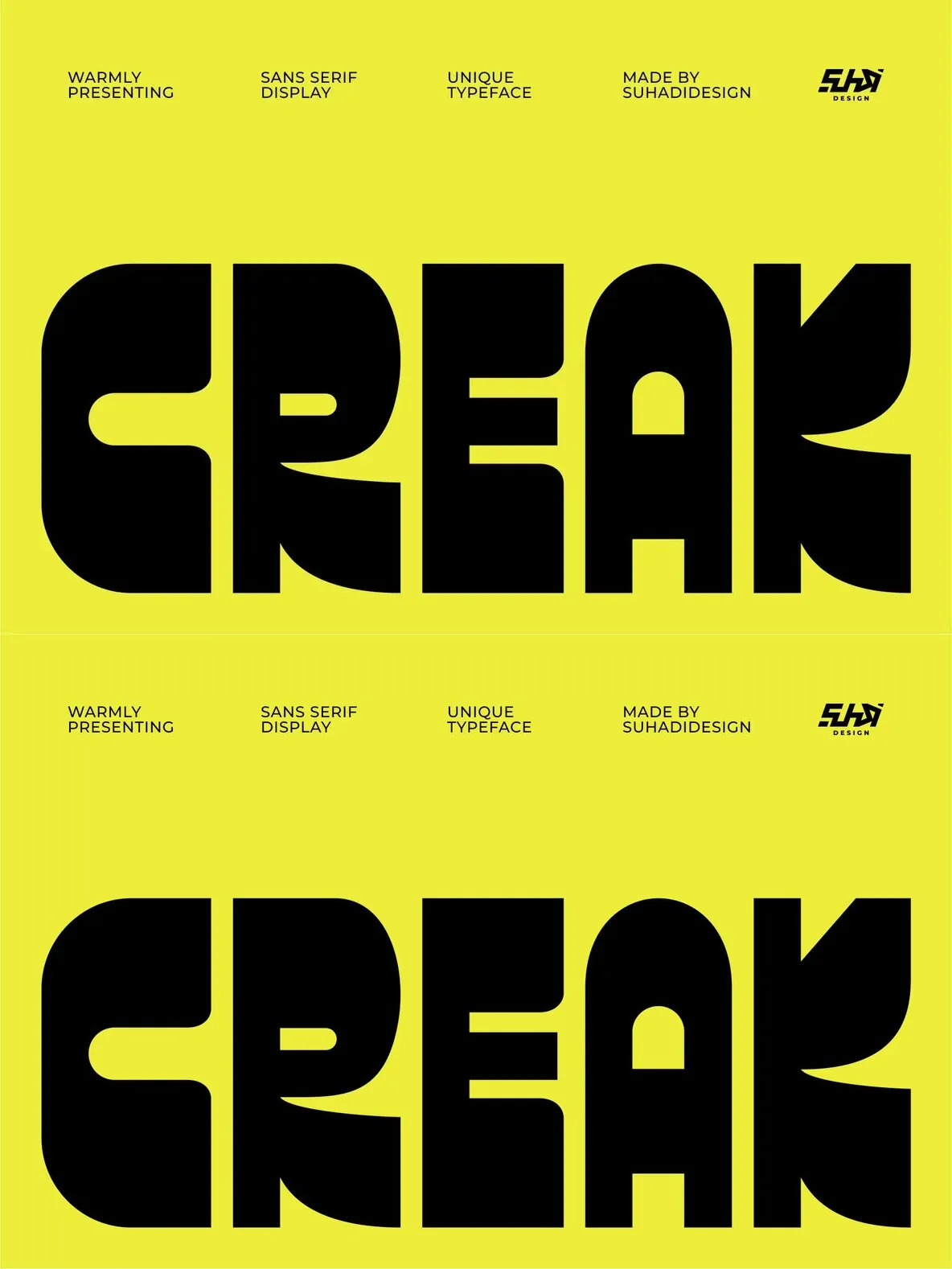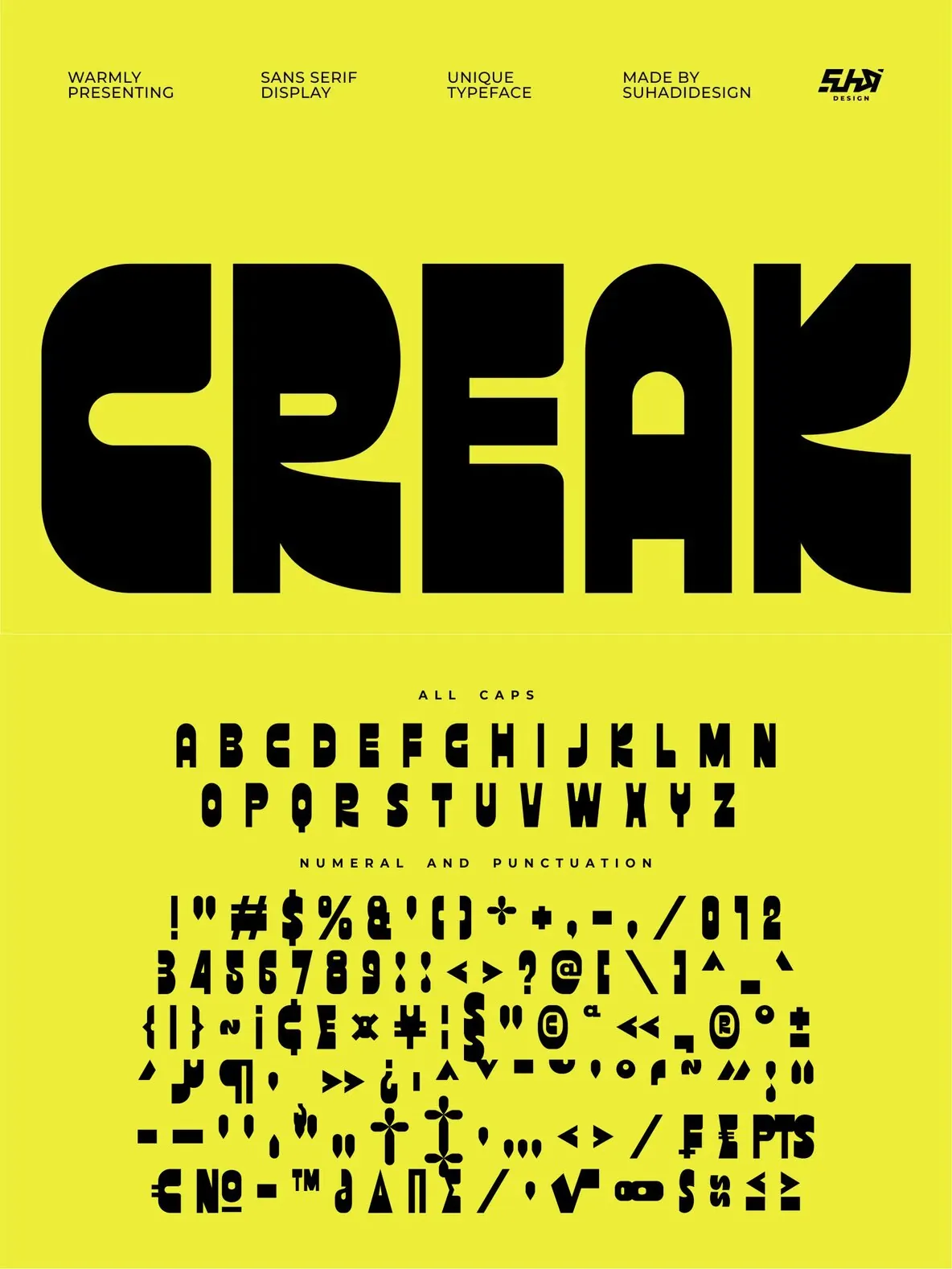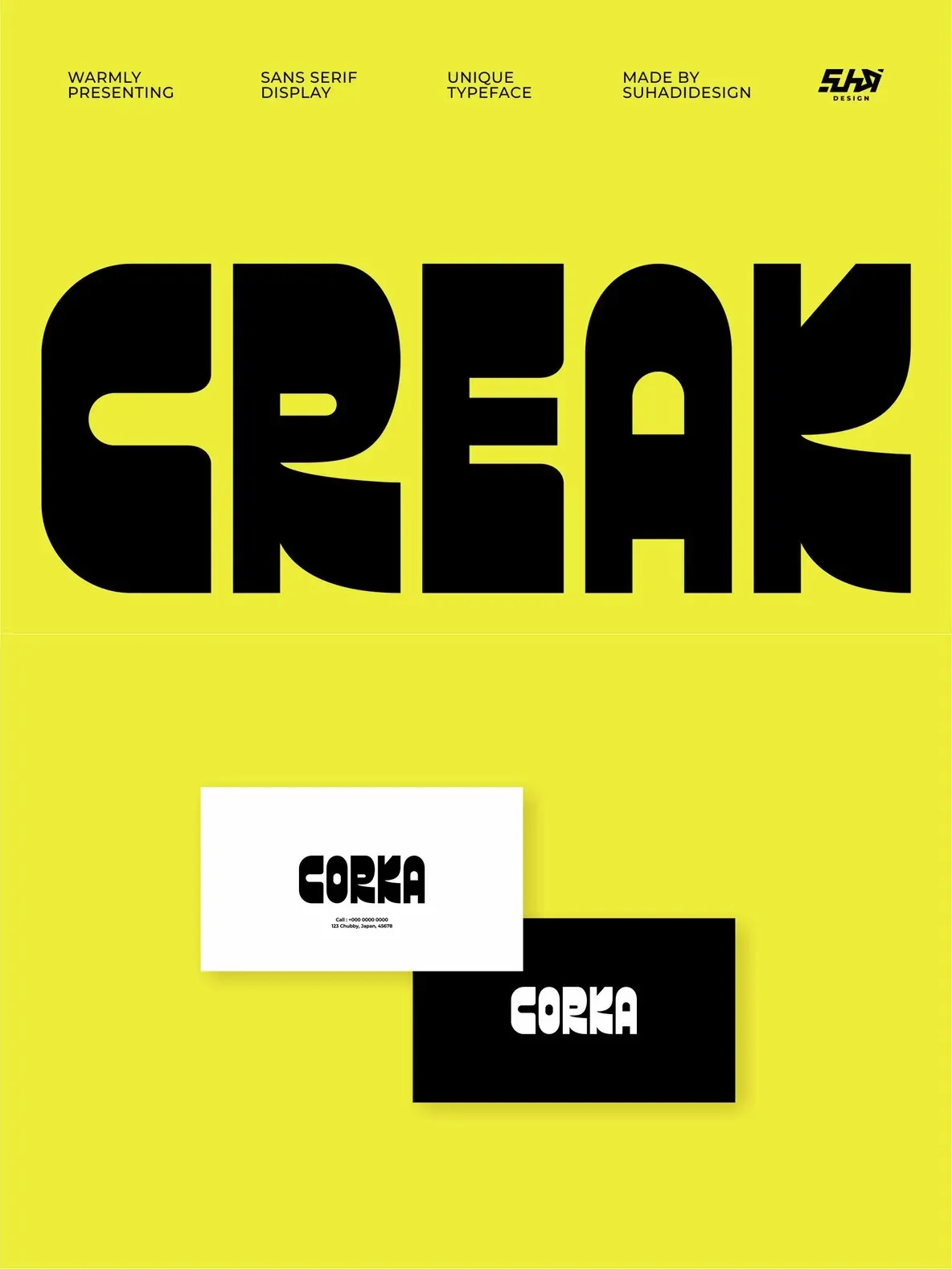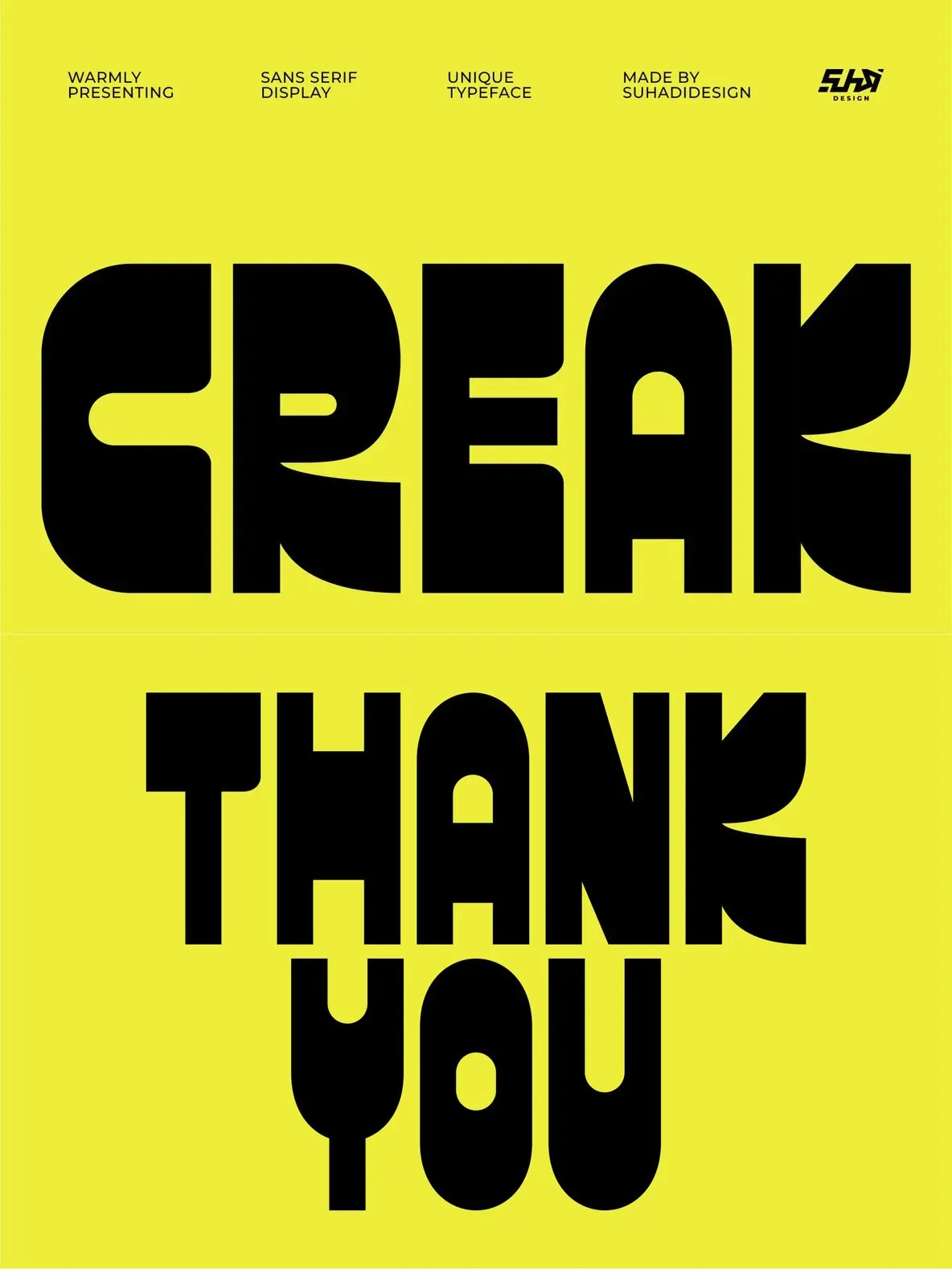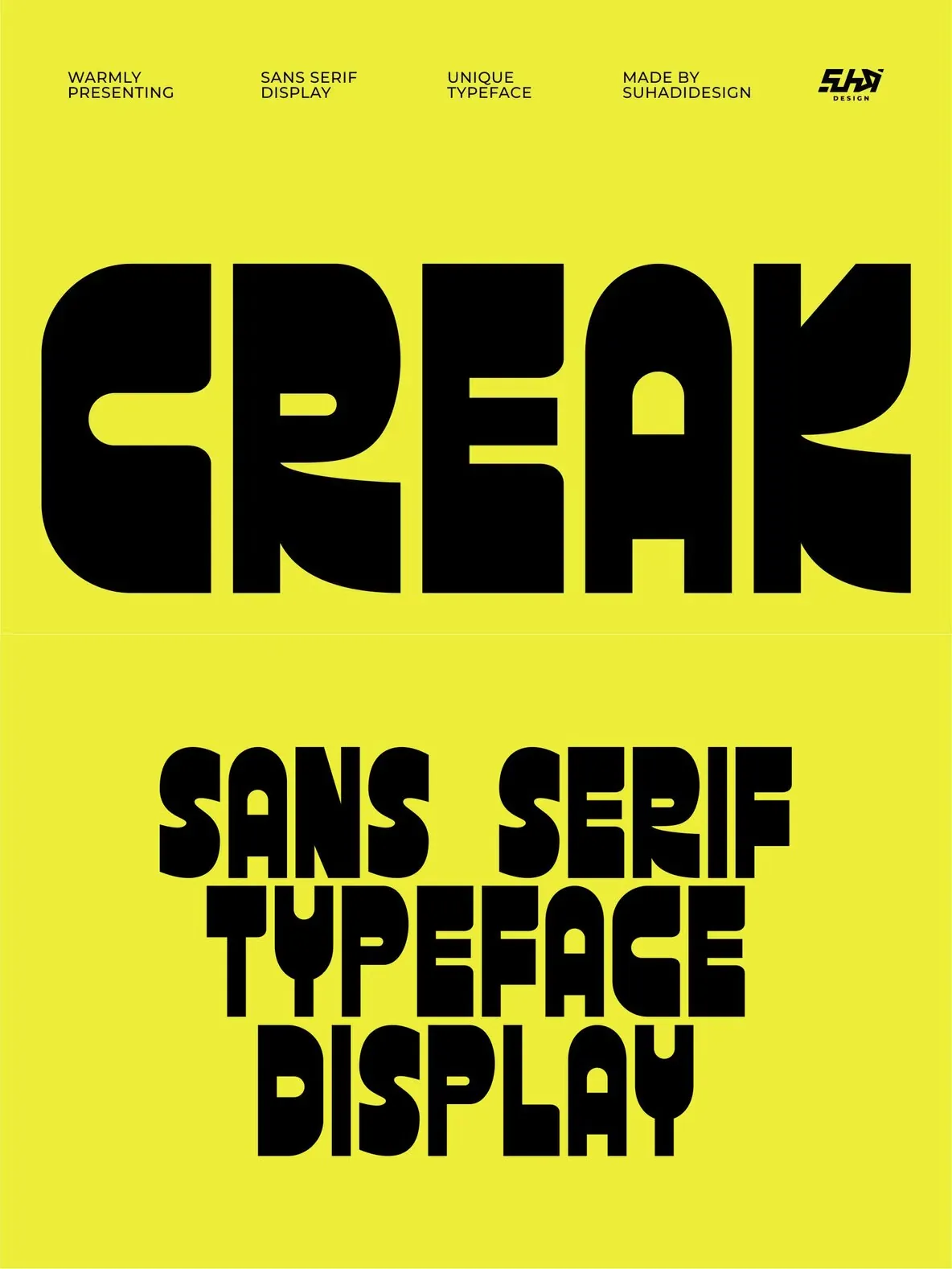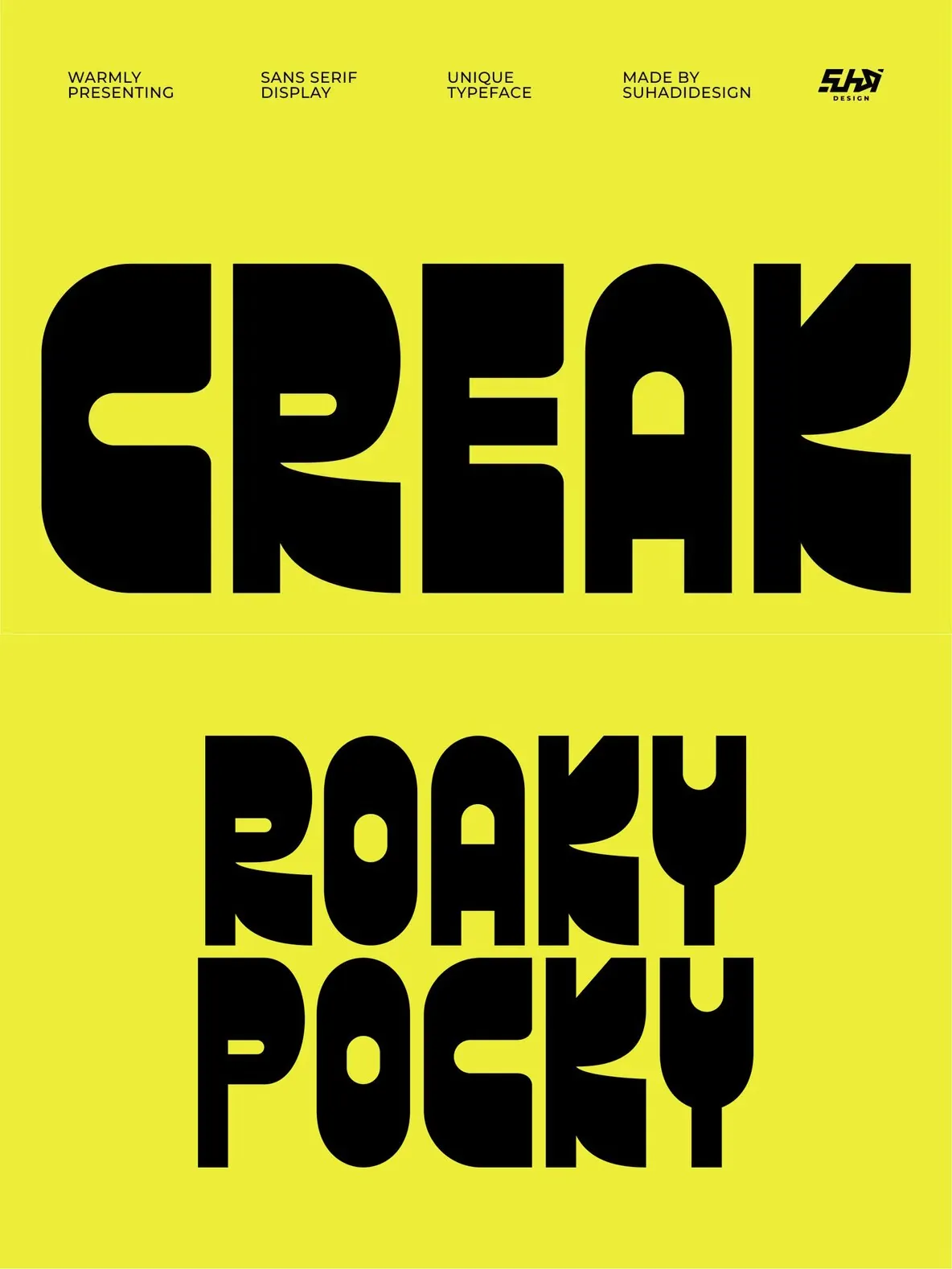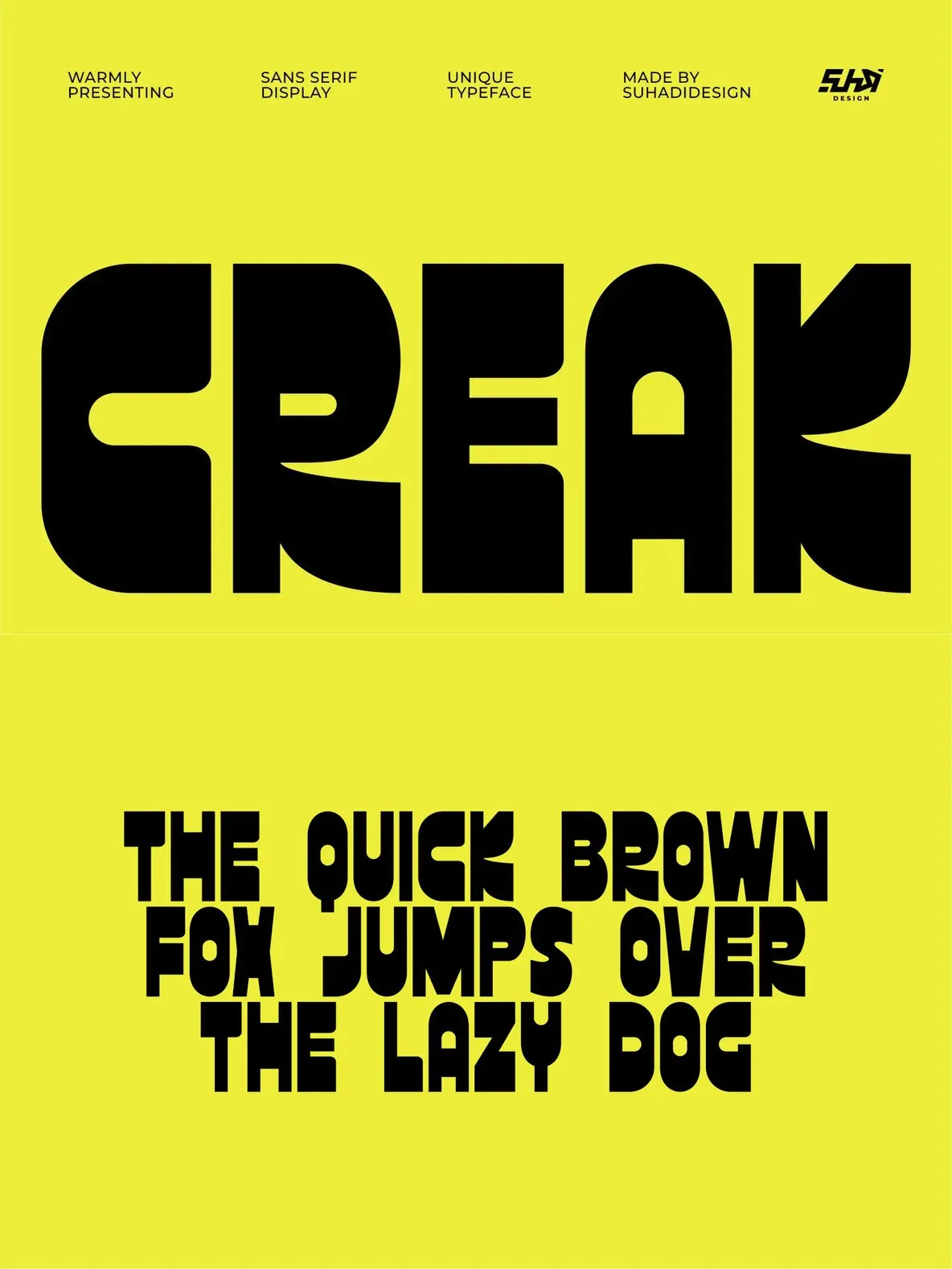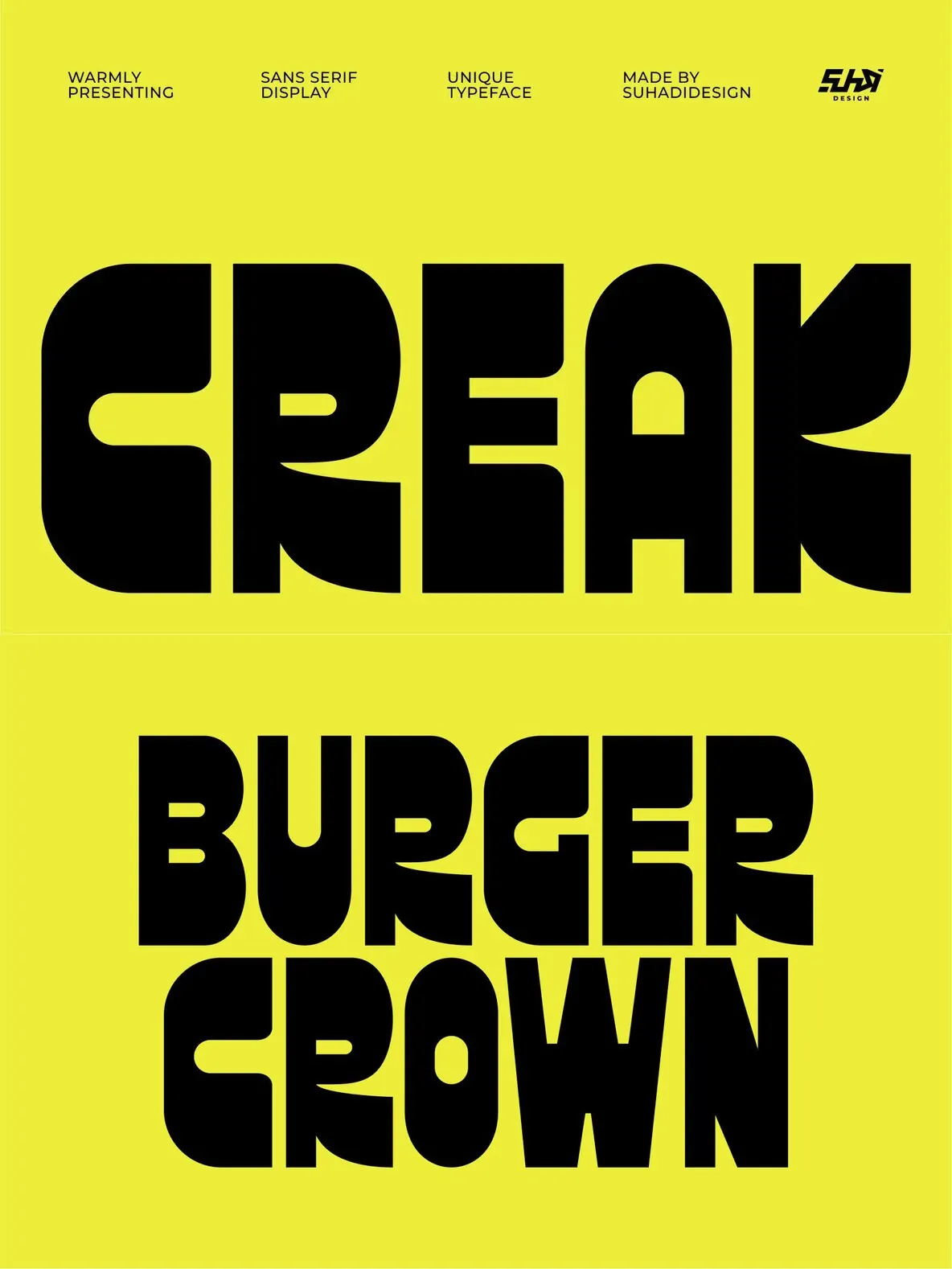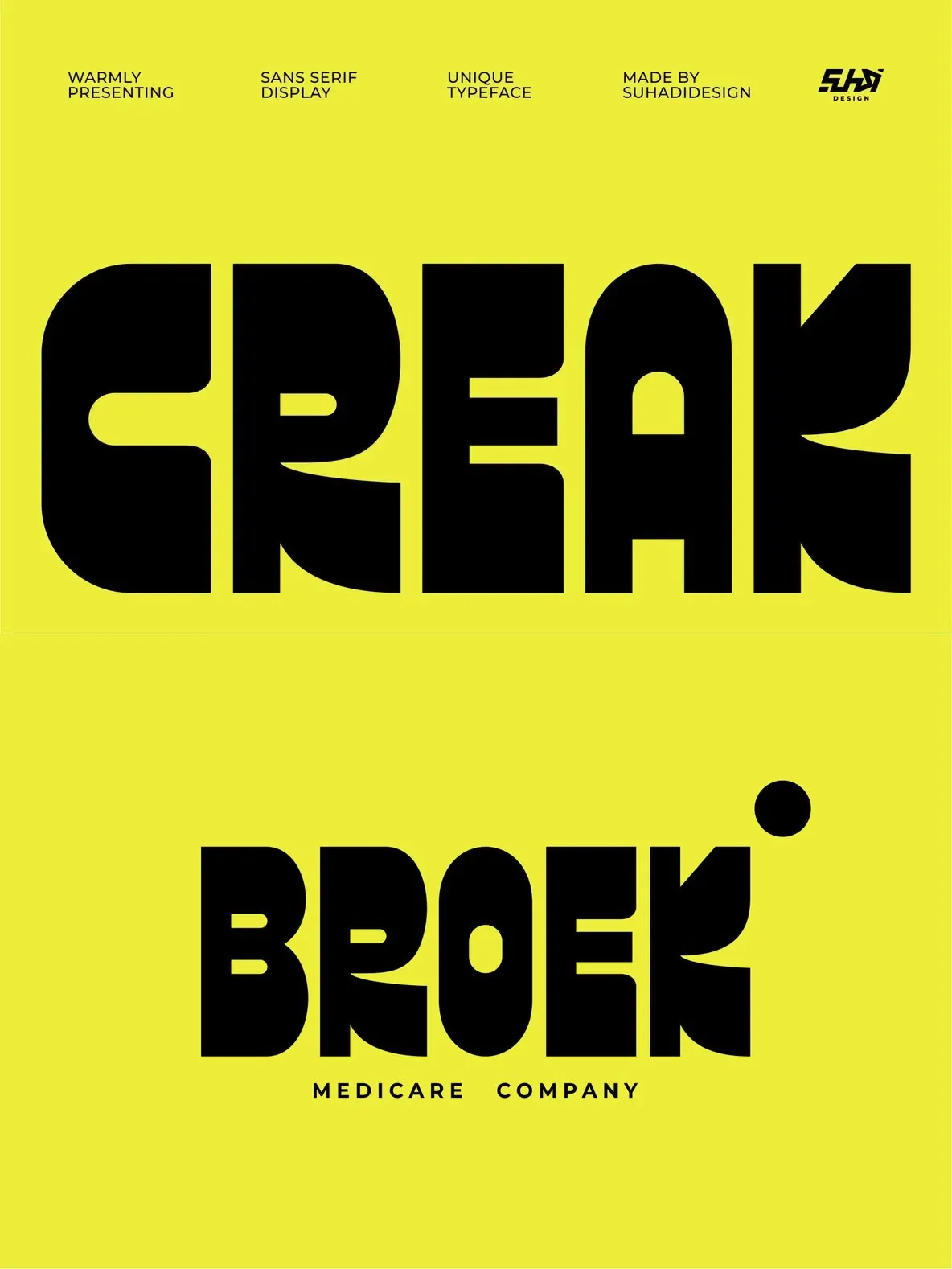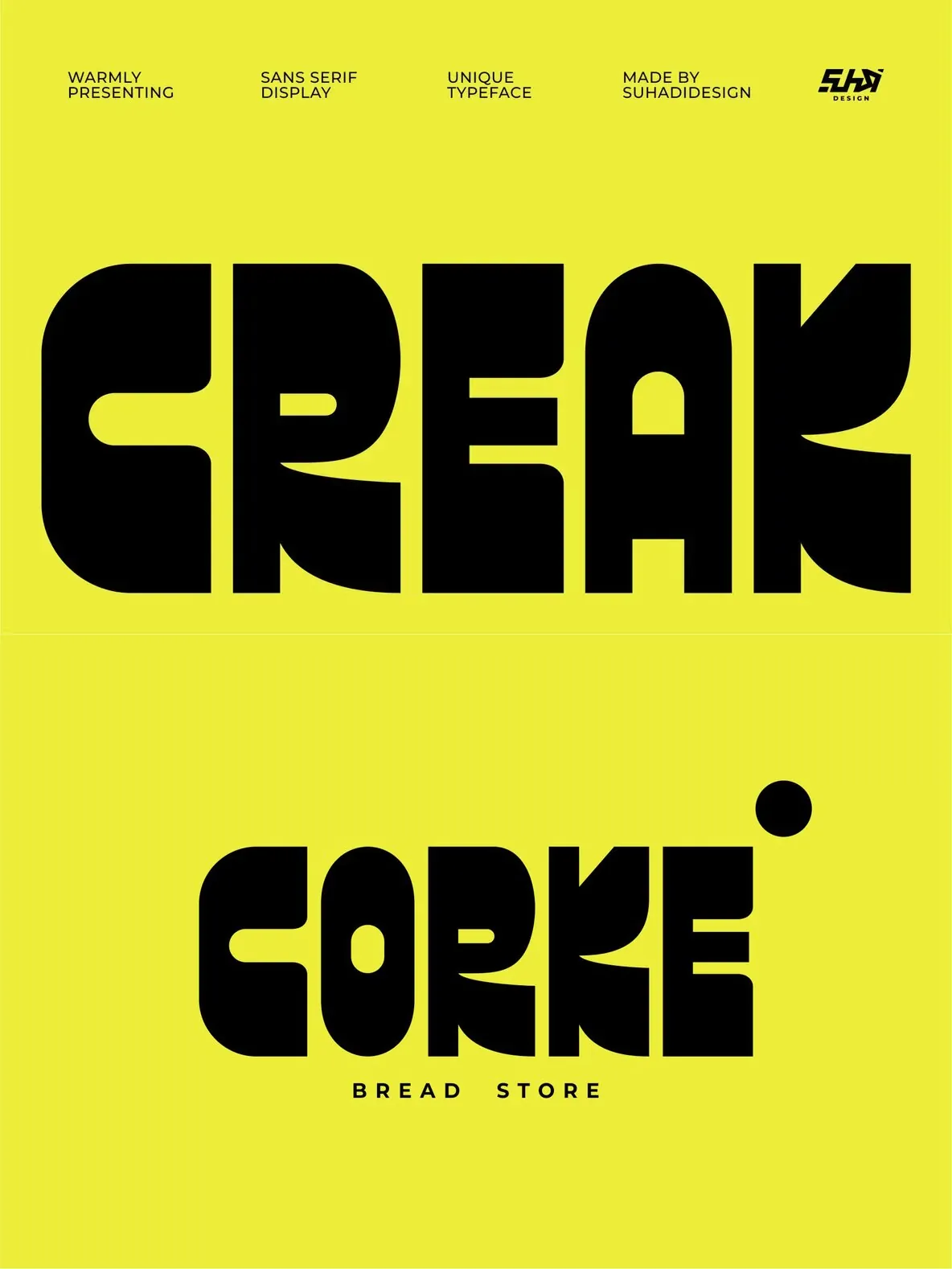
Creak Font
Creak: Elegant Sans Serif Display Typeface for Branding and Editorial
Creak is a sans serif display font designed for projects that need clarity and presence at headline sizes. Built as an all-caps system, it leans modern without relying on gimmicks—clean strokes, confident proportions, and a tidy rhythm that holds up in logotypes, packaging, and editorial layouts. If you’re looking for a sans serif display font that reads as refined rather than loud, Creak offers a straightforward option for brand work where typography carries the tone.
For American-based graphic designers and creative directors, Creak fits naturally into the day-to-day: identity concepts, labels, magazine covers, and product applications where consistency across touchpoints matters. Its letterforms stay legible on posters and banners, but also feel intentional on smaller surfaces like tags, shopping bags, and book covers. Use it when you need a sans serif display font that can sit comfortably alongside restrained photography, minimal layouts, or high-contrast color systems—without competing with the rest of the composition.
Features:
All capital letters
Multilingual support
Numbers and punctuation
Creak is particularly effective for brand names, short statements, and typographic marks where spacing and silhouette do most of the work. Pair it with a neutral text face for longer reading, or set it alone for a concise, graphic voice that stays coherent from concept mockups to production files.